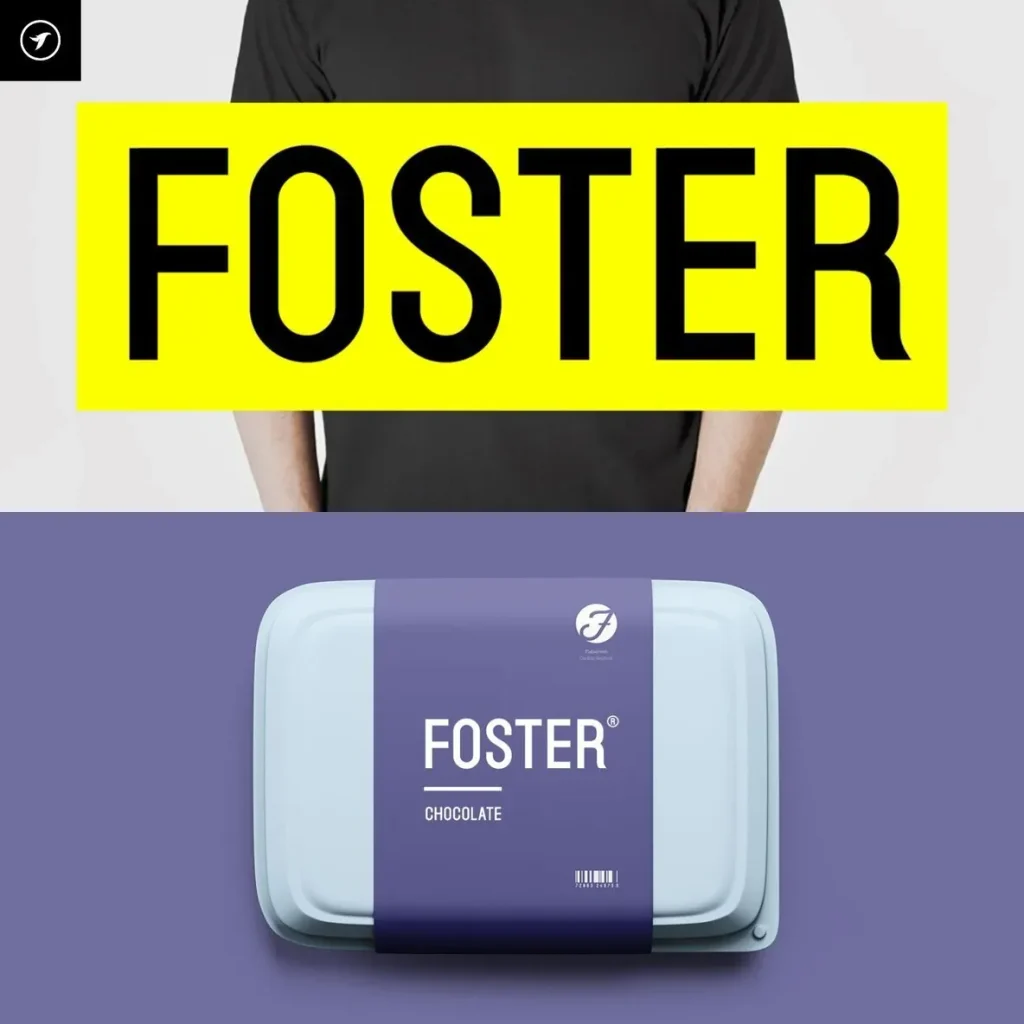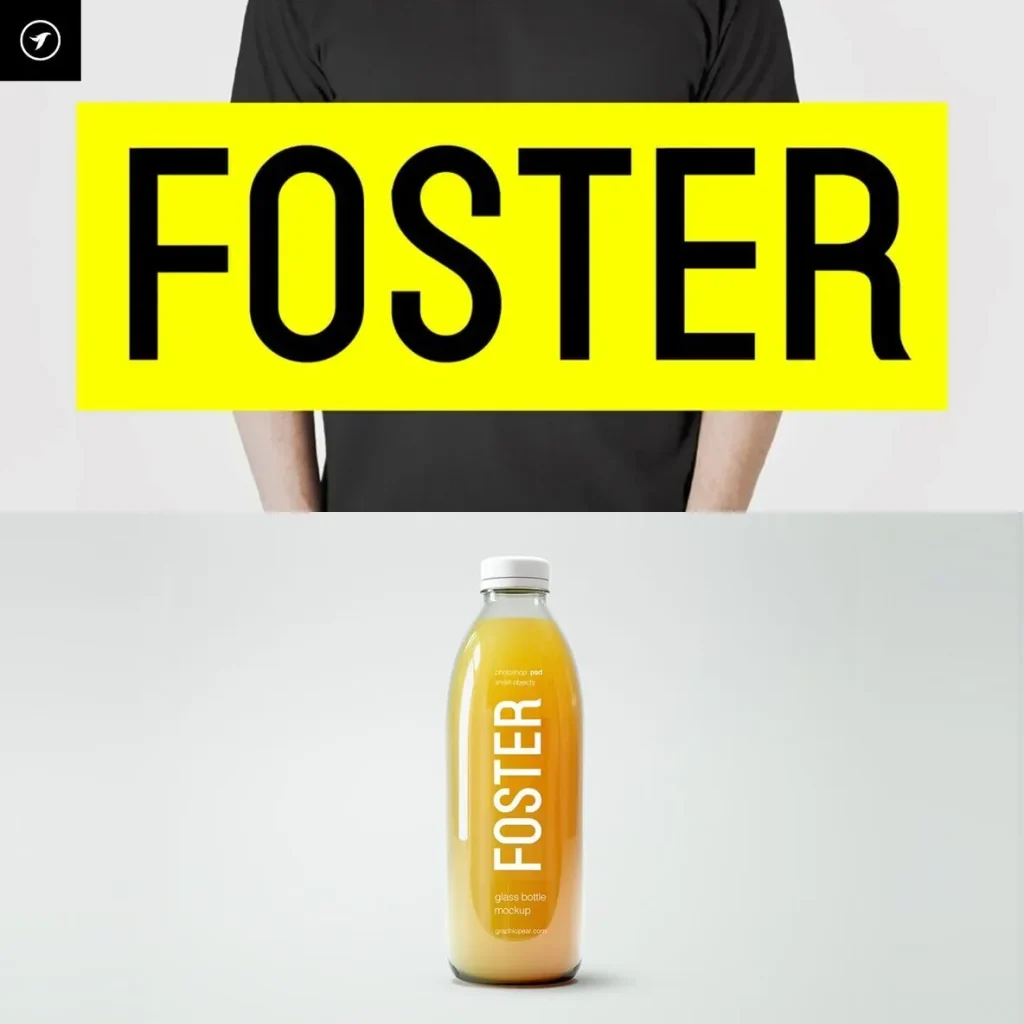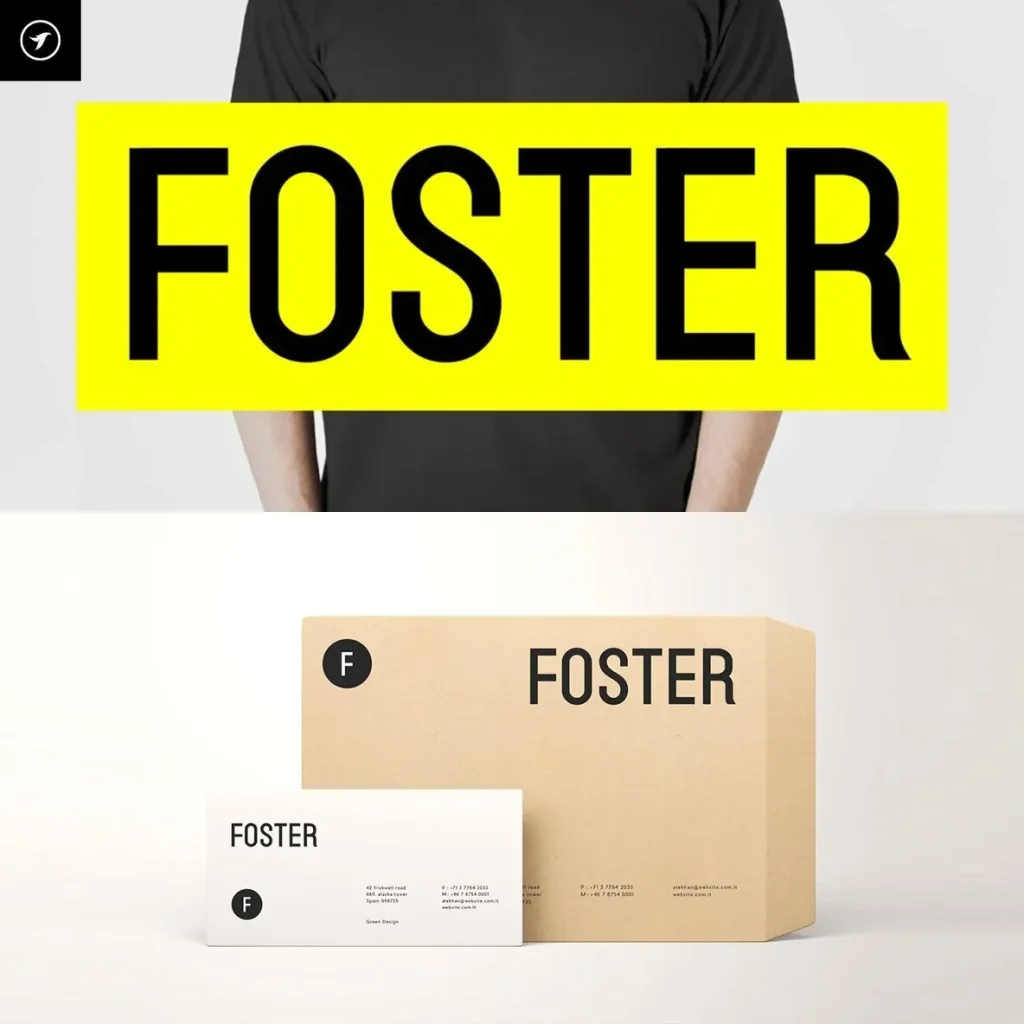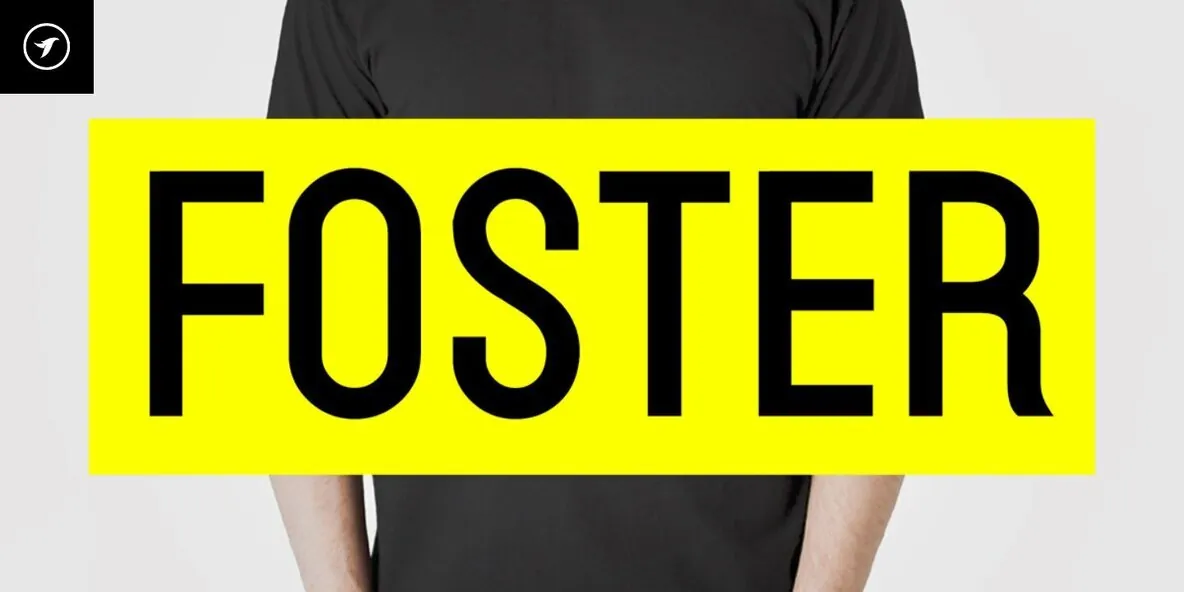
Foster — Bold Shapes, Artistic Edge
Foster is an expressive display typeface with creative shapes, bold styling, and a distinctive artistic personality. Its unique forms create memorable typography that brings originality and energy to visual compositions, making it a strong choice when type needs to carry the mood of a design.
Use Foster for projects with a clear visual direction and a need for confident, character-rich lettering. It suits designers looking for a display font that feels graphic, memorable, and full of presence without losing clarity in headline-driven work.
Perfect For
Posters
Branding
Logos
Packaging
Apparel designs
Creative projects with a strong visual direction